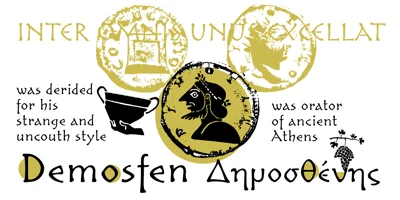
Demosfen Font
Demosfen Font is perfect for academic publications, historical documentaries, classical literature covers, museum exhibitions, legal documents, scholarly presentations, and traditional institutional branding projects.
What makes Demosfen Font exciting is its classical heritage and authoritative presence, featuring dignified letterforms that evoke ancient Greek wisdom and scholarly tradition while maintaining contemporary readability and professional appeal.
The Demosfen Font family includes Regular, Medium, Bold, and Condensed versions, along with small caps, old-style numerals, and classical ligatures that enhance the font's academic and traditional character.
Demosfen Font represents a masterful tribute to classical typography and ancient scholarly traditions. This distinguished typeface draws inspiration from historical lettering styles, creating a bridge between timeless wisdom and modern communication needs. The font's refined character and authoritative presence make it an exceptional choice for projects that require gravitas, credibility, and intellectual sophistication.
Educational institutions and publishing houses consistently select Demosfen Font for materials that demand scholarly credibility and academic respectability. The typeface's classical proportions and balanced letterforms reflect centuries of typographic evolution, making it particularly suitable for formal documents, research publications, and institutional communications where authority and trustworthiness are paramount. Each character demonstrates careful attention to historical accuracy while meeting contemporary design standards.
The versatility of Demosfen Font extends across multiple professional applications, from university publications to legal documentation. Its excellent readability in both print and digital formats makes it ideal for extended reading materials, where clarity and eye comfort are essential. The font's dignified appearance enhances the perceived value and credibility of written content, making complex information more accessible and engaging to readers.
Legal firms, academic institutions, and cultural organizations frequently choose Demosfen Font because of its ability to convey expertise and established authority. The typeface's classical influence helps establish immediate recognition of quality and scholarly rigor, appealing to audiences who value tradition, knowledge, and intellectual achievement in their professional and educational pursuits.